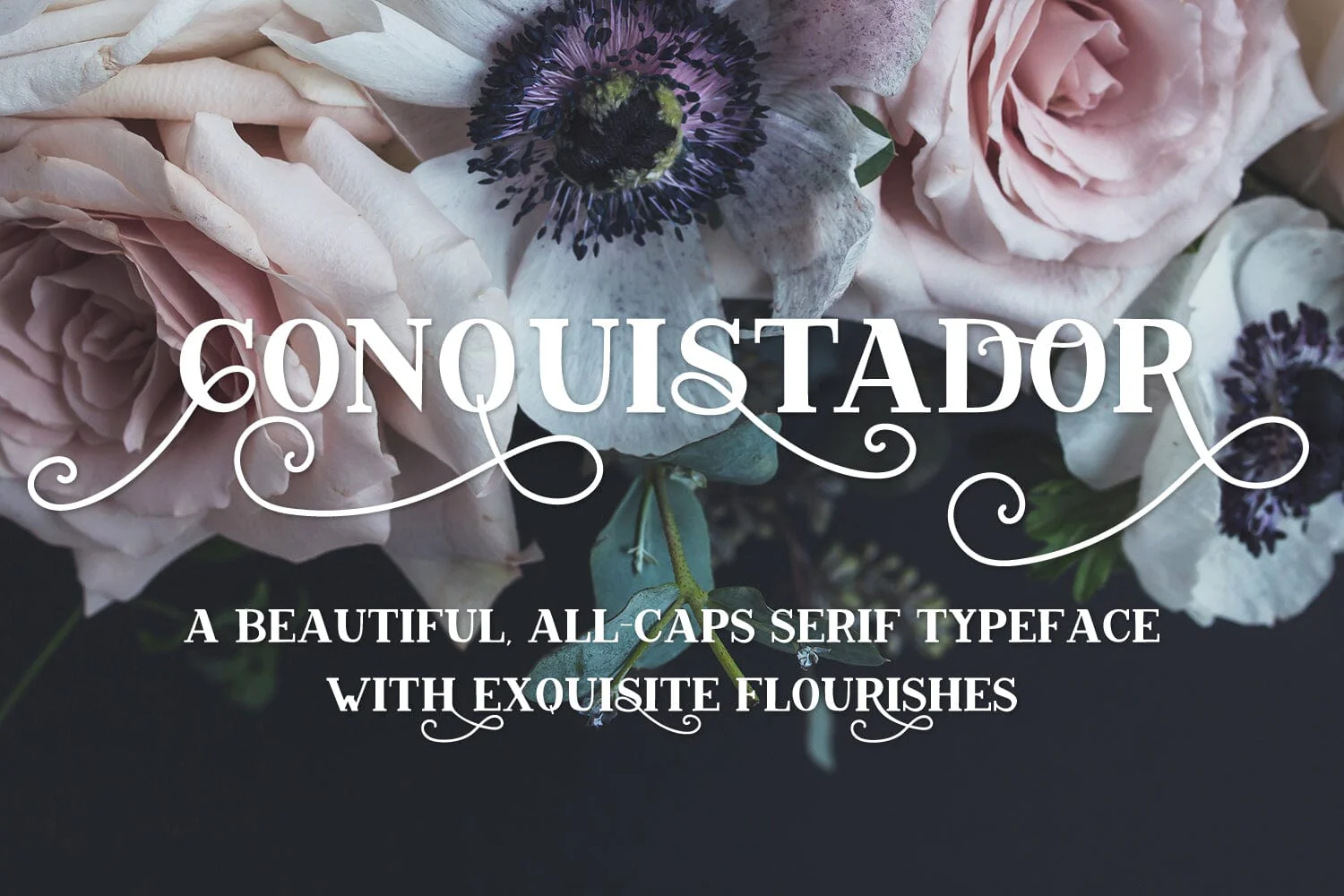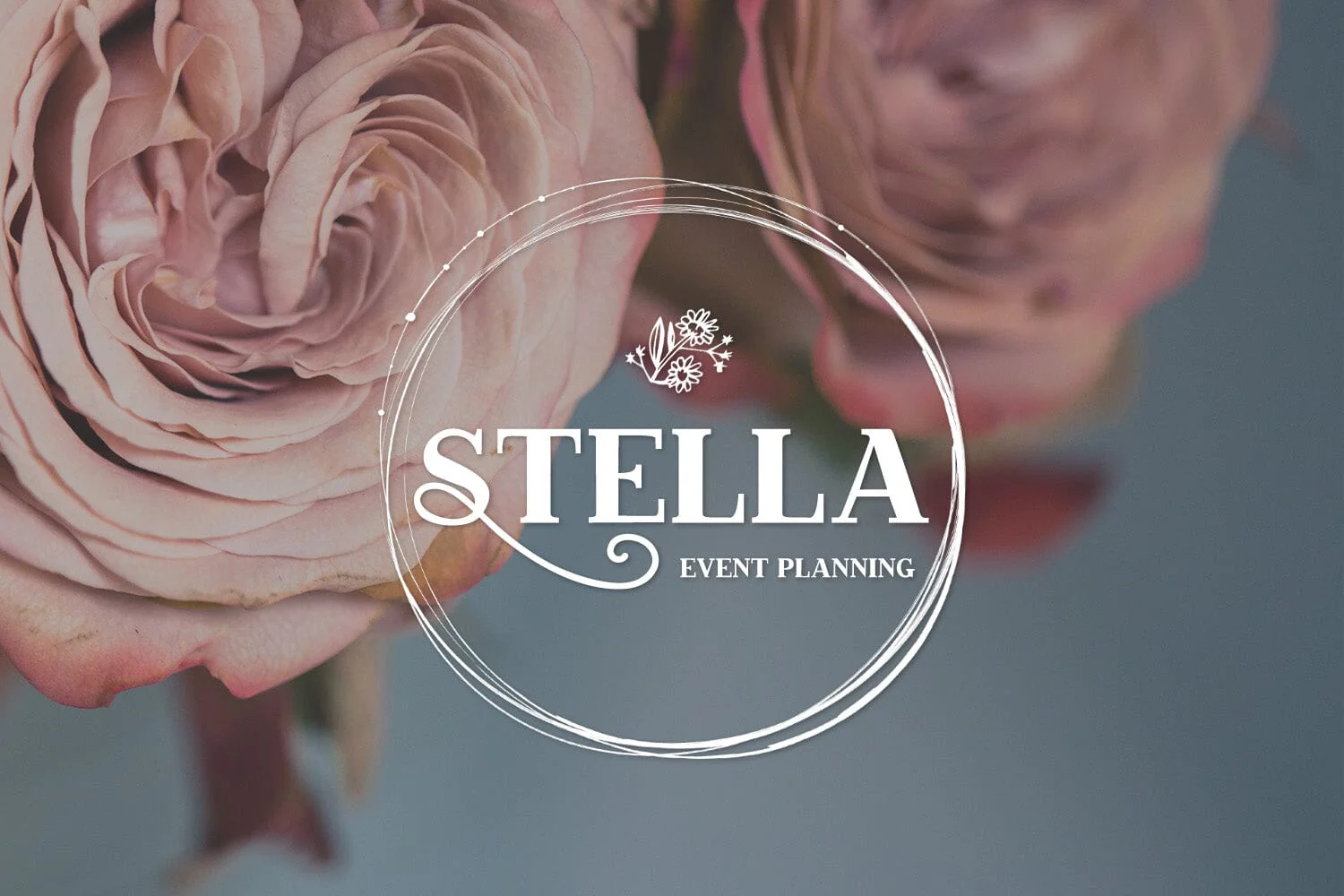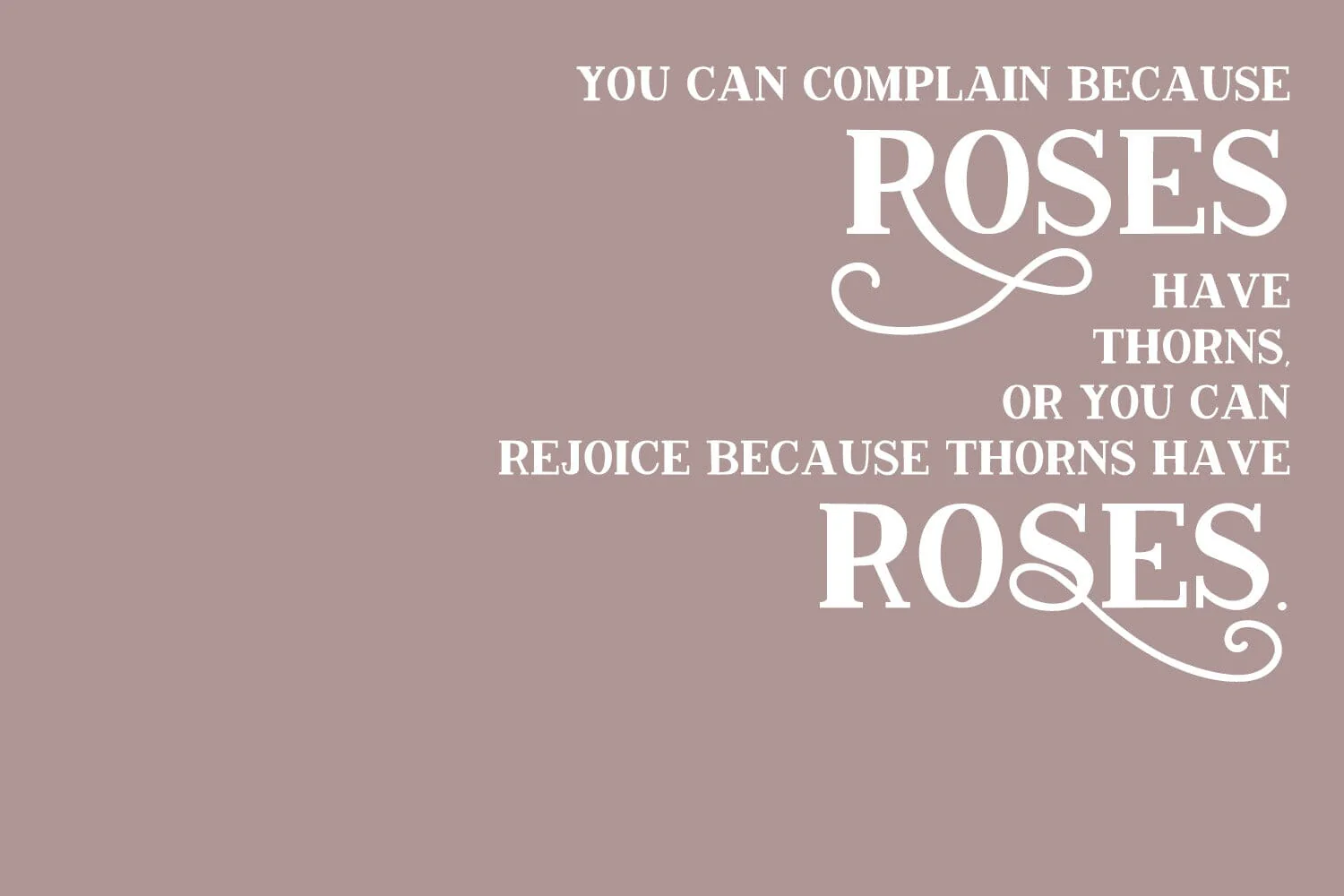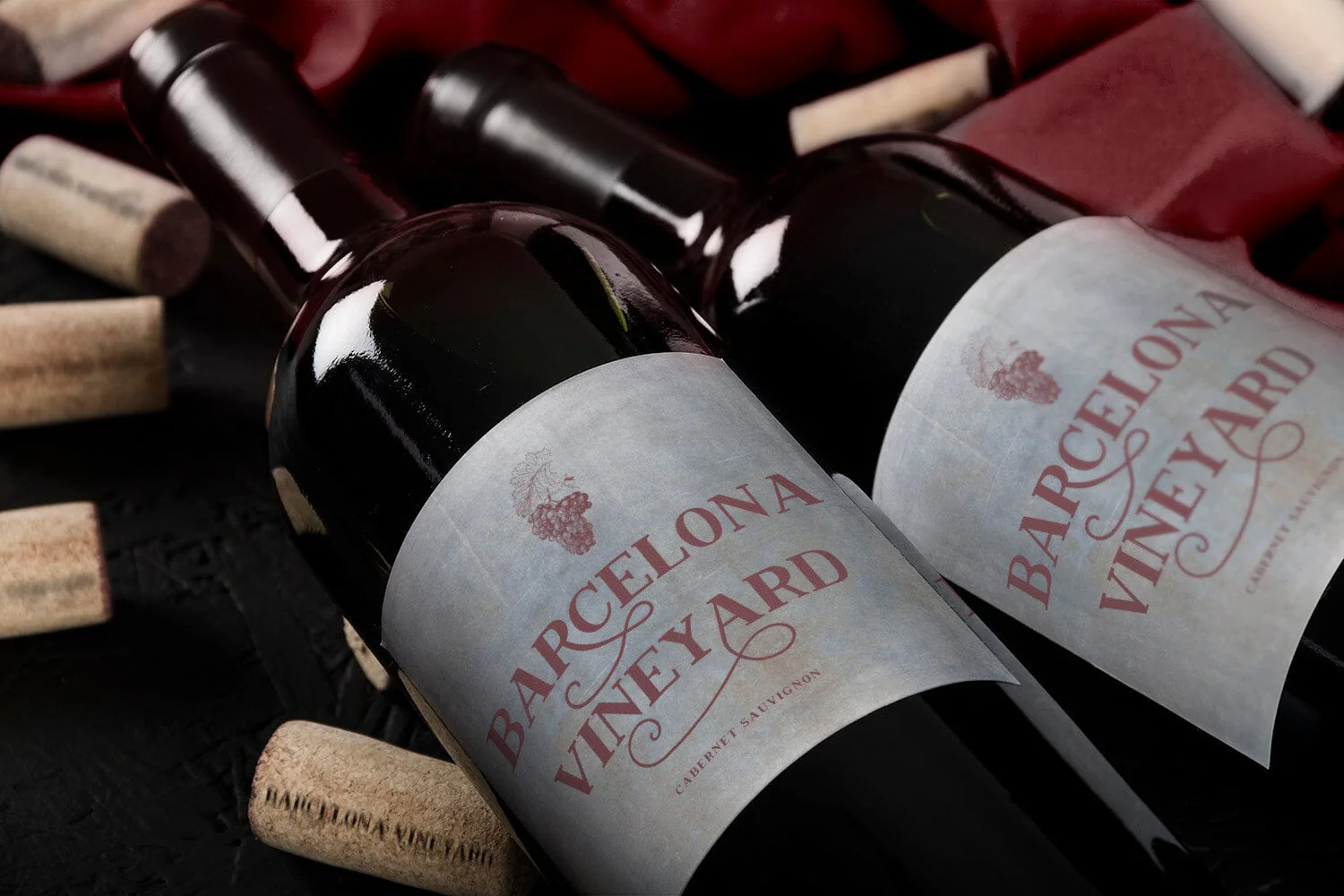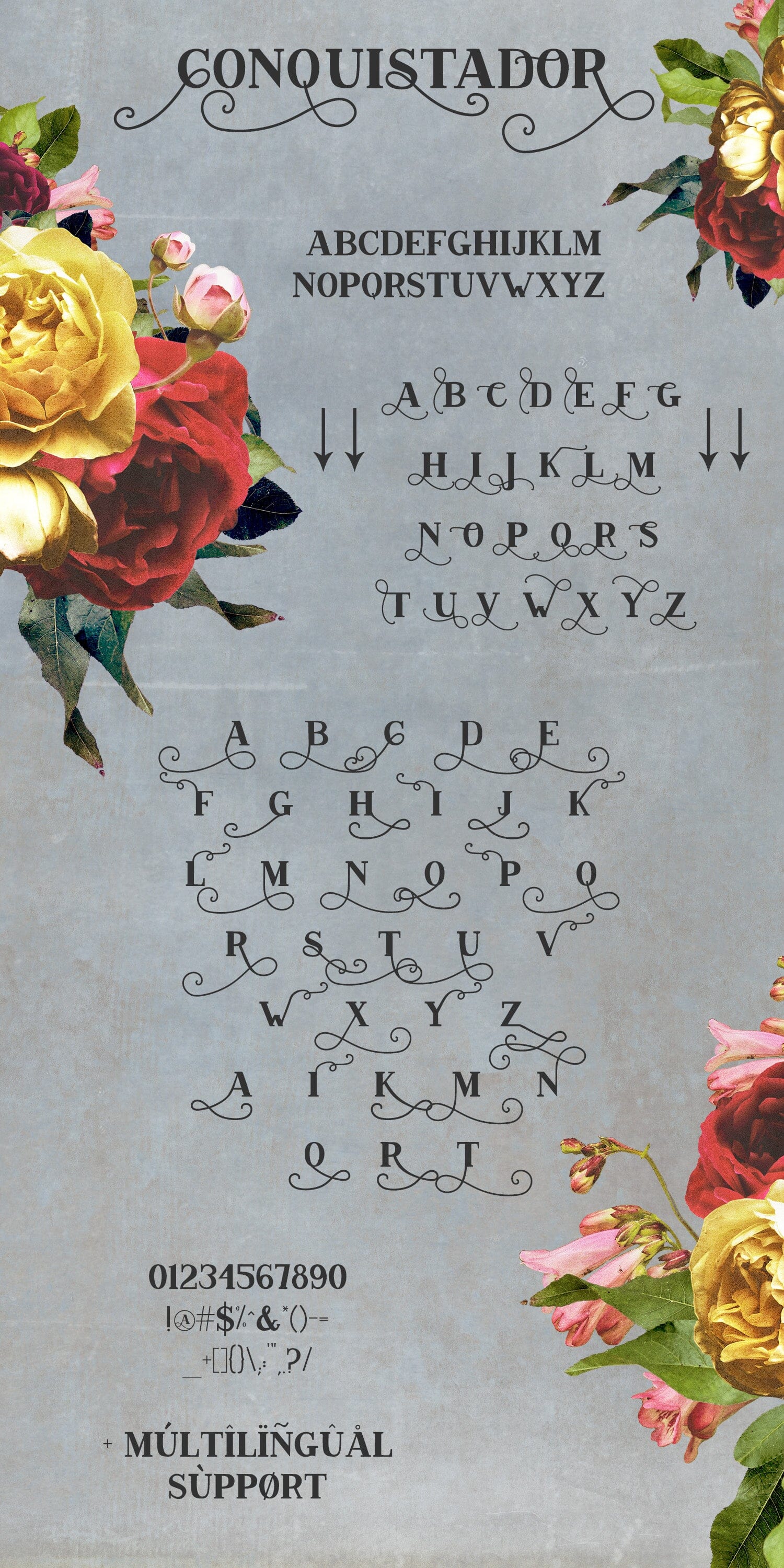
Conquistador Serif Font
Conquistador is a strong, all-caps serif font, inspired by the Florida city of Saint Augustine, the oldest city in the United States.Ā Conquistadorās lowercase version features simple, clean flourishes, perfect to add that little extra something to a logo, an invitation, signage, and more.Ā In addition to this, there are plenty of alternates to customize your text to the fullest extent!
Conquistador includes Western European language support.Ā IMPORTANT: This font contains OpenType features.Ā It is best to access those awesome features through a program that supports OpenType features, like Illustrator or Photoshop.Ā You can also access those features through a character map or through FontBook, where you can copy/paste individual glyphs.Ā Ā